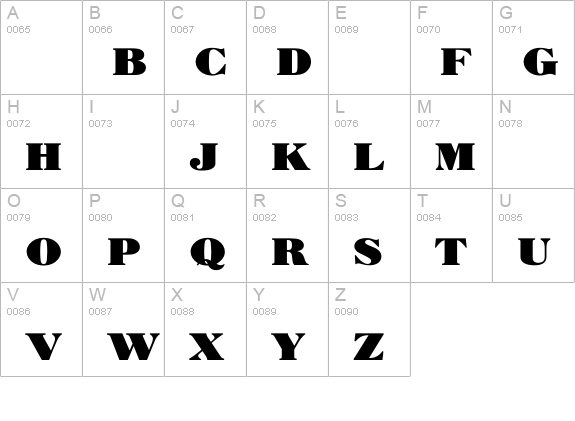
SphinxSolid Font Details
Introducing SphinxSolid, a versatile and stunning font that is bound to captivate and elevate your design projects. With its elegant and sophisticated appeal, SphinxSolid effortlessly blends modernity with a touch of classic charm, making it the perfect choice for various creative endeavors. This font exudes a sense of strength and solidity, its bold lines and distinctive curves commanding attention and leaving a lasting impression. Its clean and sharp design ensures readability, making it suitable for both large headlines and smaller body text. Whether you're creating a logo, designing a website, or crafting a promotional material, SphinxSolid adds a touch of professionalism and refinement to any project. But what makes SphinxSolid truly remarkable is that it is not only visually captivating, but it is also freely available to download at FontsMarket.com. That's right, this exceptional font can be easily accessed and utilized without any cost, allowing designers and creatives of all levels to embrace its beauty and versatility without any limitations. So why wait? Enhance your designs with the timeless allure of SphinxSolid and experience the freedom of creativity that this font offers. Download it now from FontsMarket.com and unlock a world of endless possibilities.